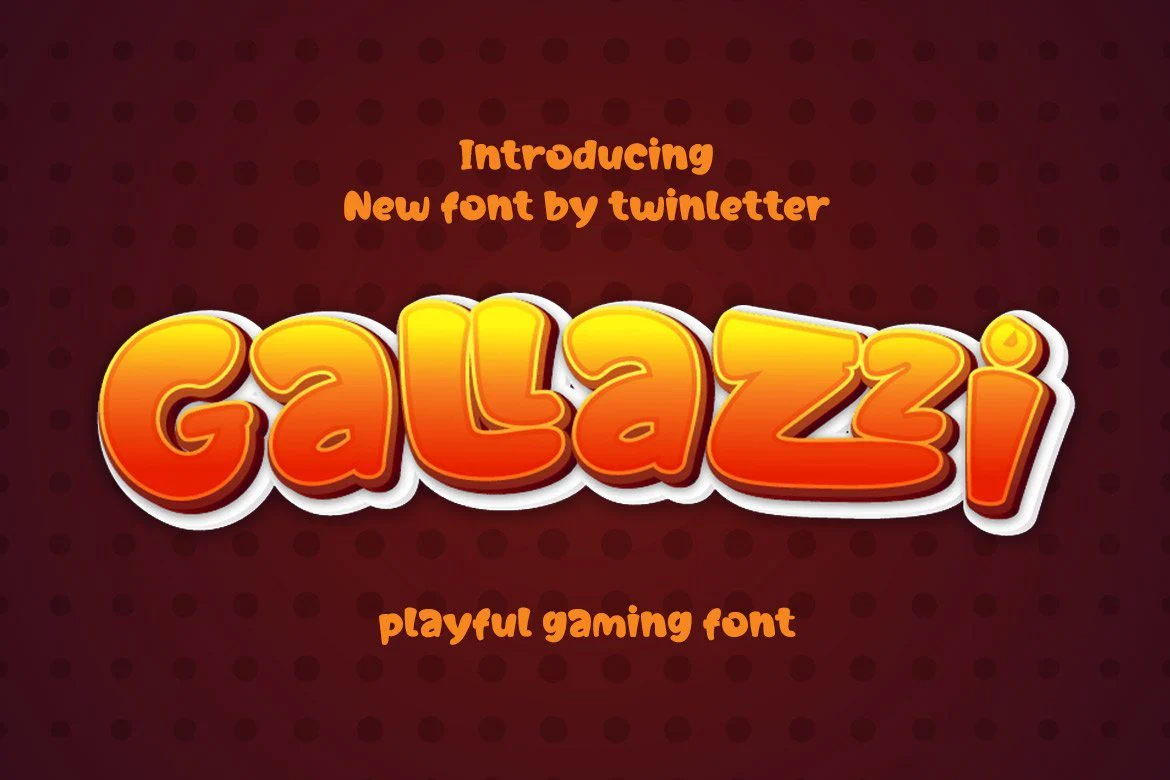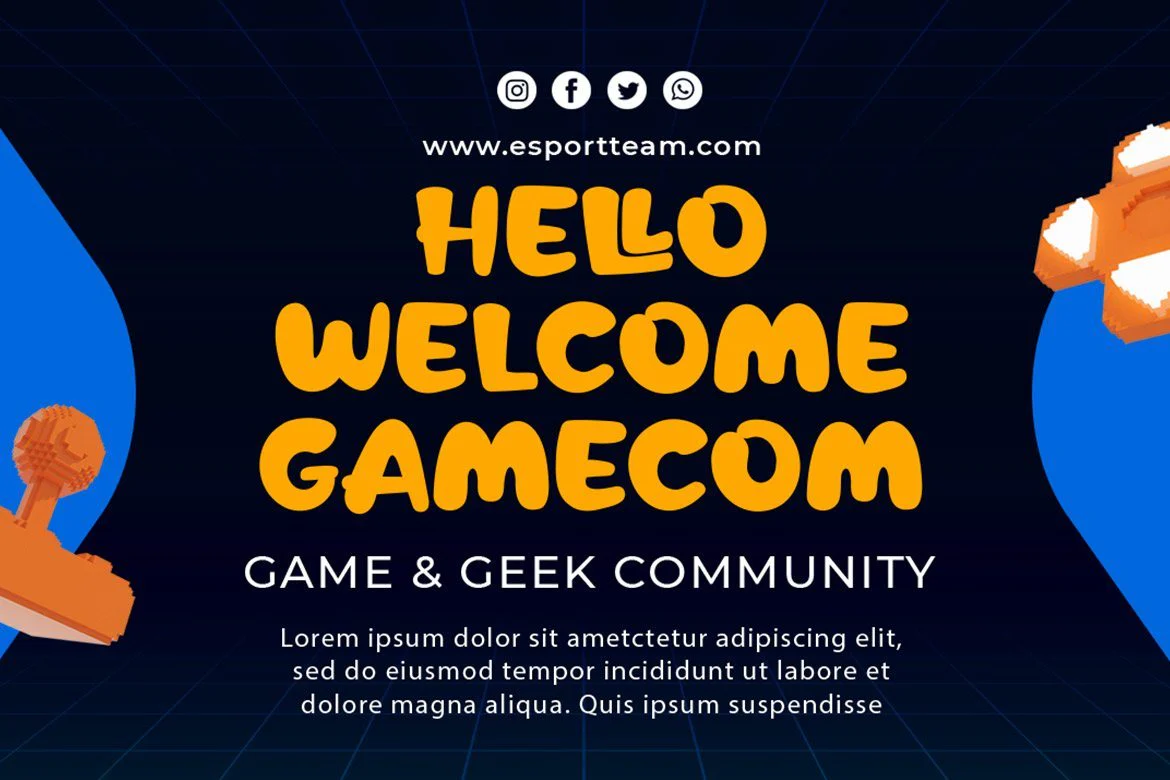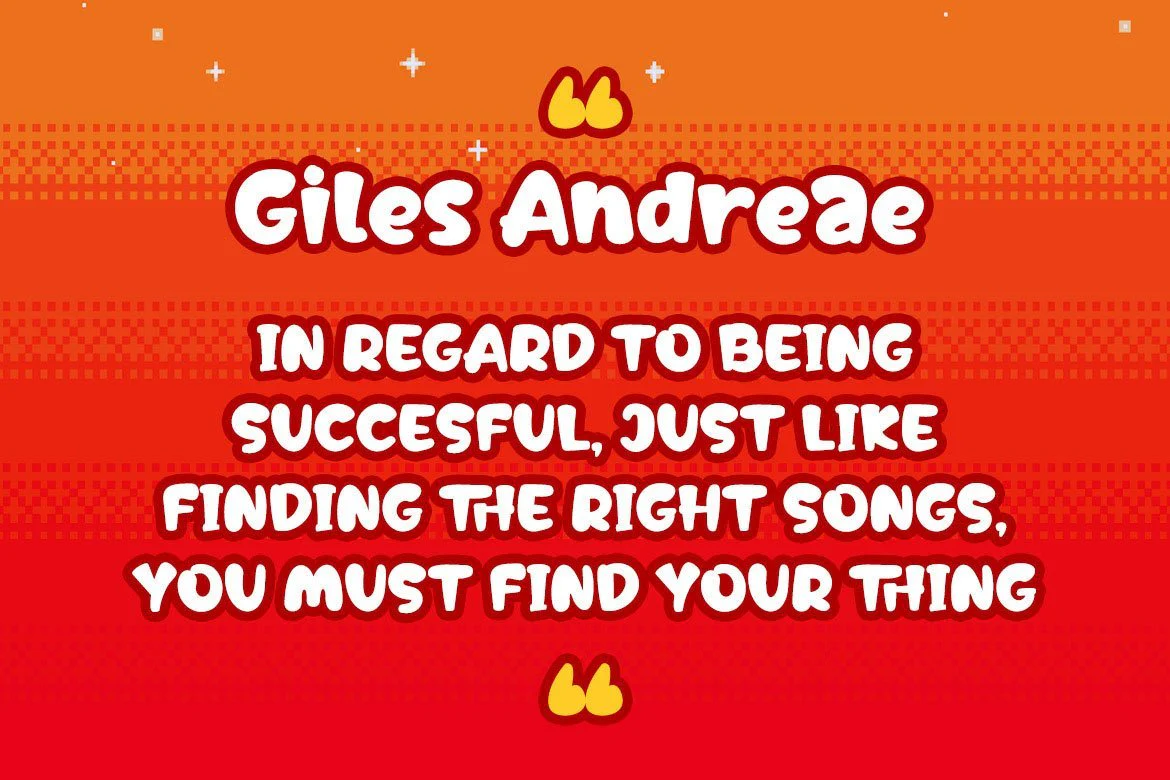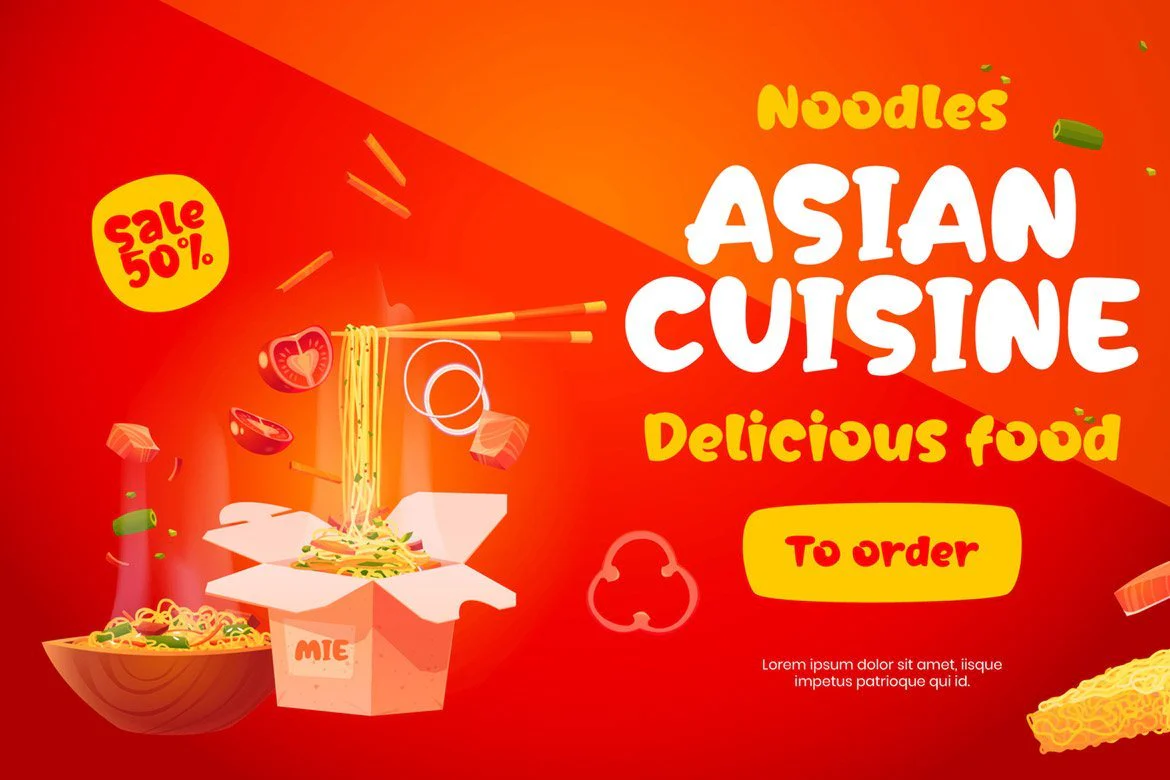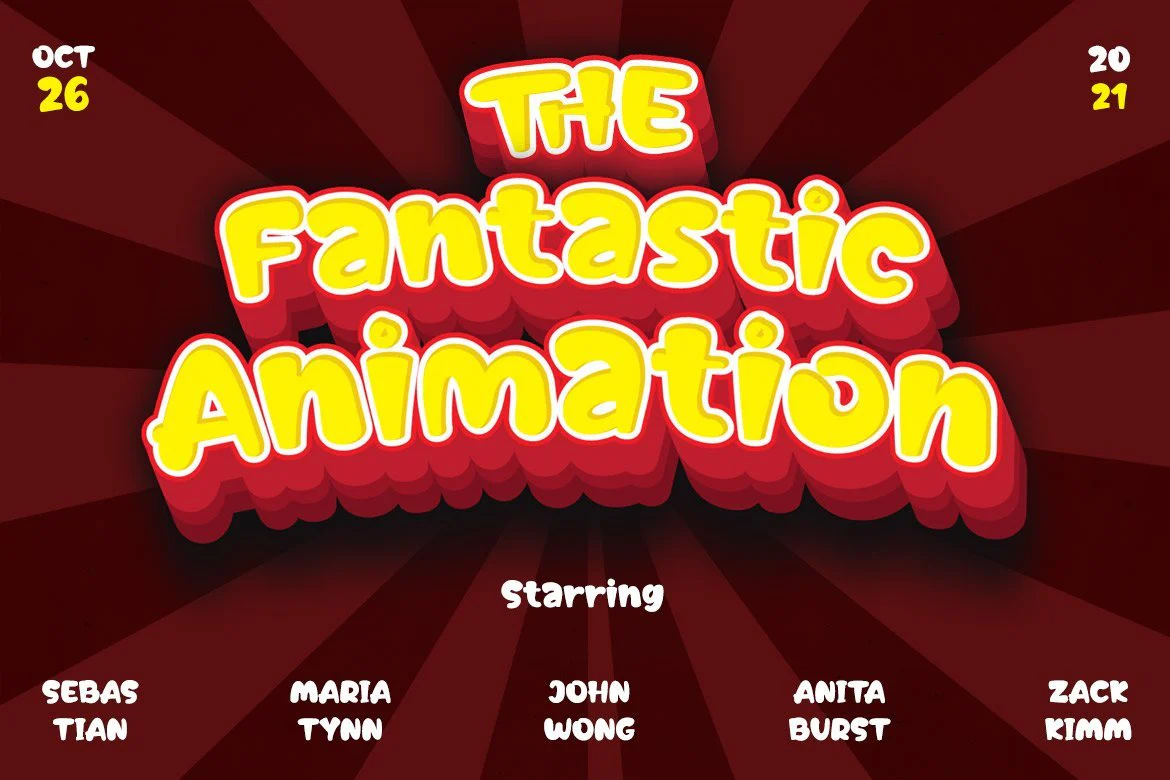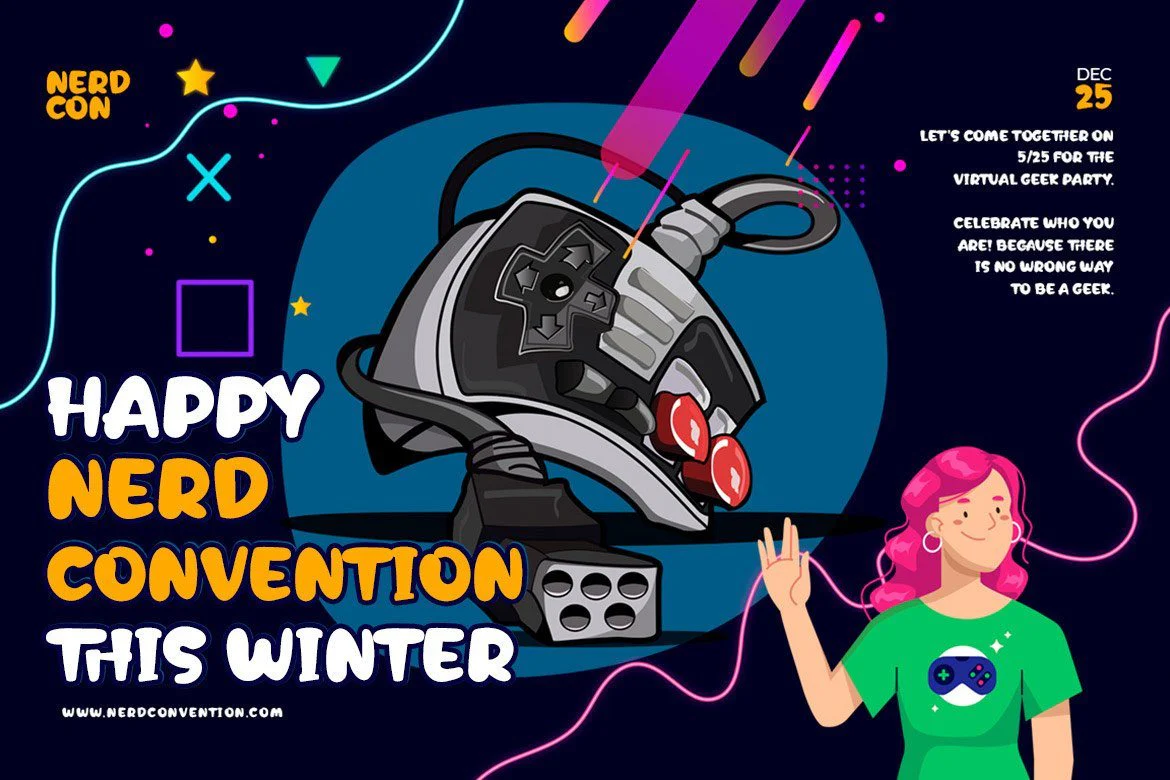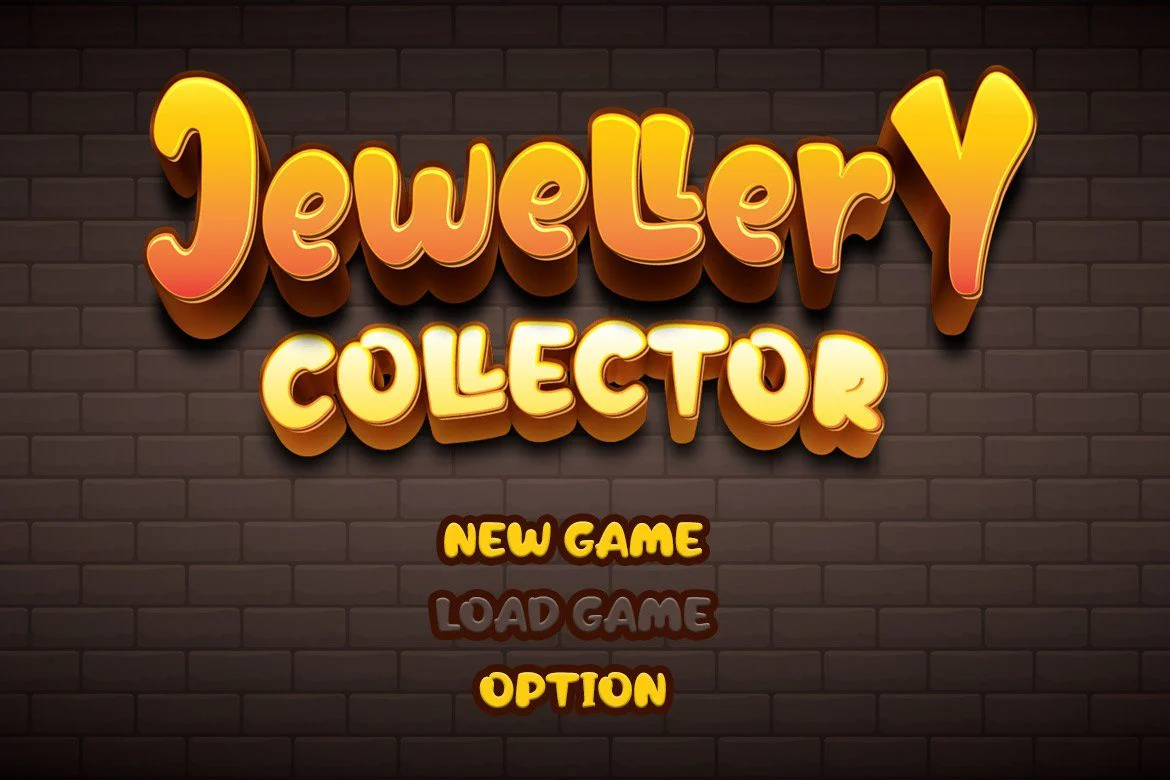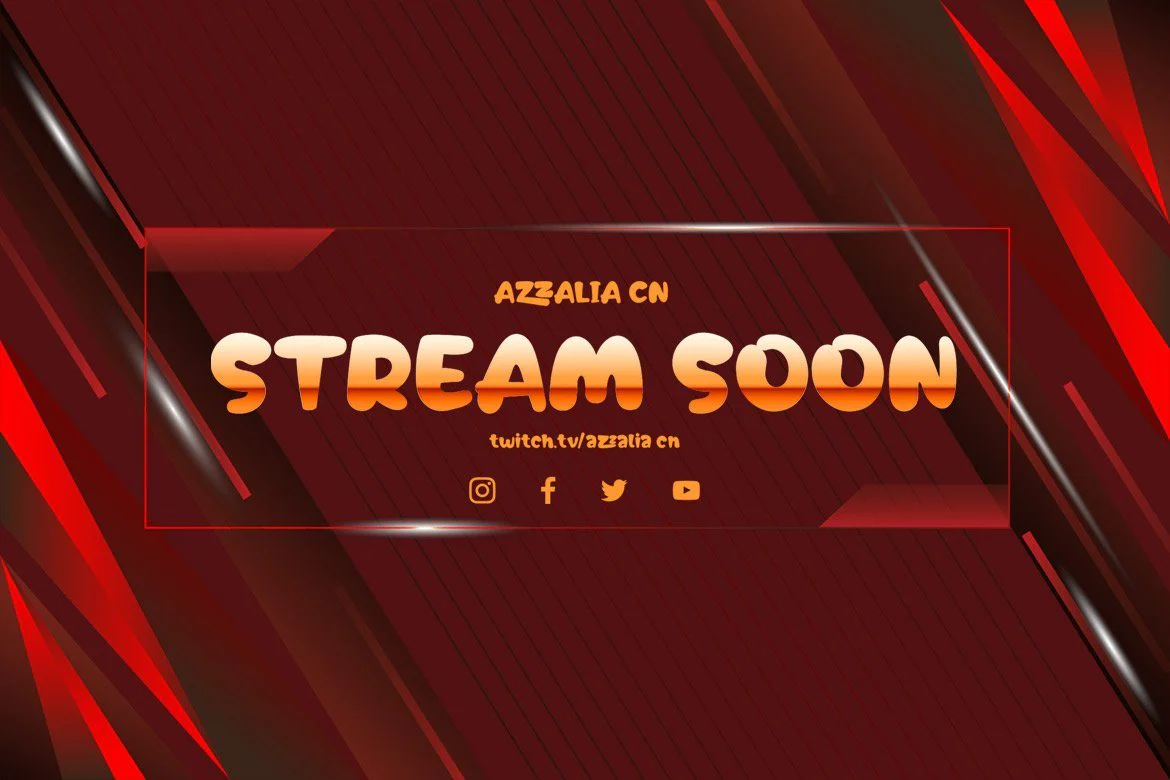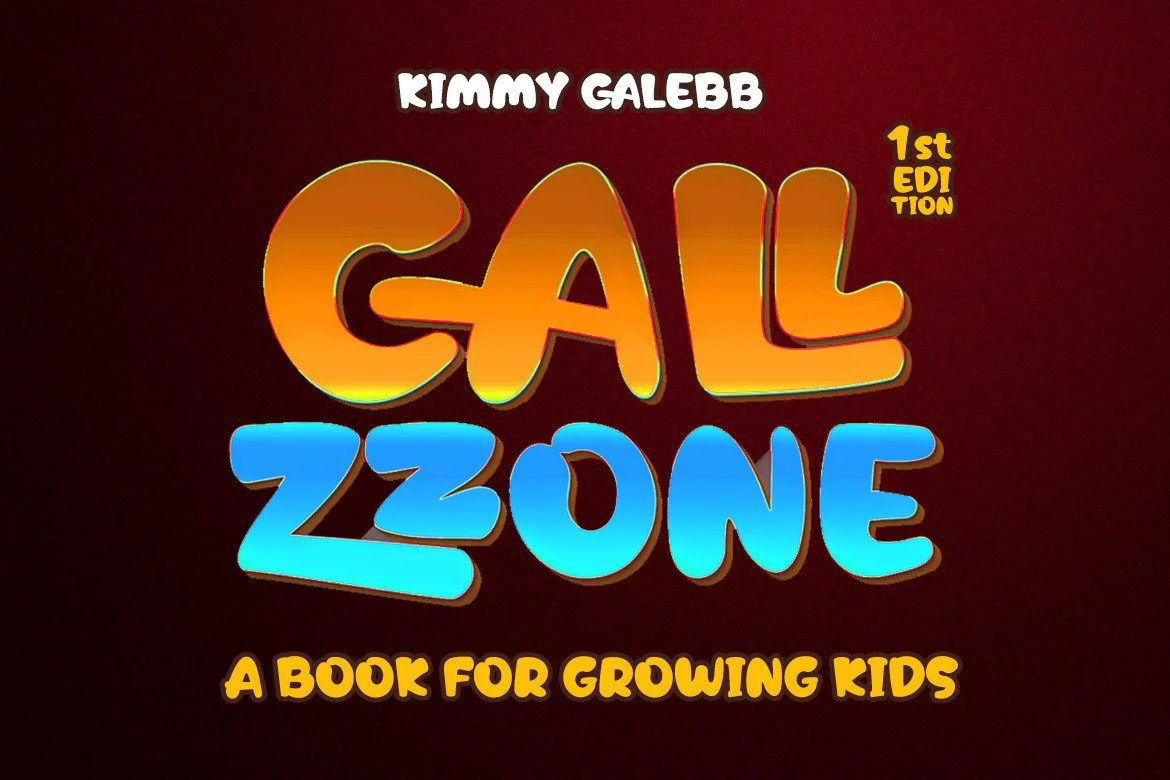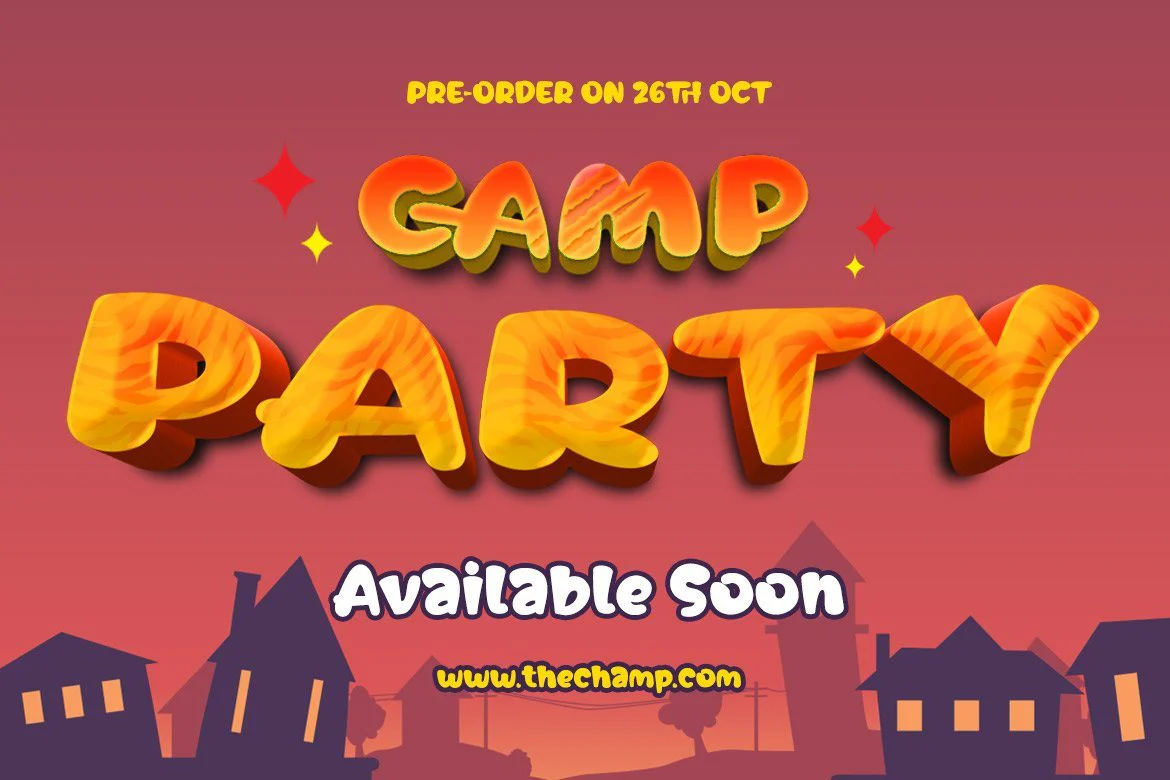
Gallazzi Playful Display Font
Gallazzi is a fun display typeface with a lovely and attractive appearance.
Start using this font in your project since it is smooth, cool, and cute to the eye. Then you’ll have a project that is truly distinctive and cheerful in comparison to others because the harmony and harmony will make your project bolder and look different.
Let’s construct an awesome project using this typeface, and make it one of a kind.
This font is perfect for games, sporting events, branding, banners, posters, movie titles, book titles, quotes, logotypes, and more.
Gallazzi is a fun display typeface with a lovely and attractive appearance.
Start using this font in your project since it is smooth, cool, and cute to the eye. Then you’ll have a project that is truly distinctive and cheerful in comparison to others because the harmony and harmony will make your project bolder and look different.
Let’s construct an awesome project using this typeface, and make it one of a kind.
This font is perfect for games, sporting events, branding, banners, posters, movie titles, book titles, quotes, logotypes, and more.